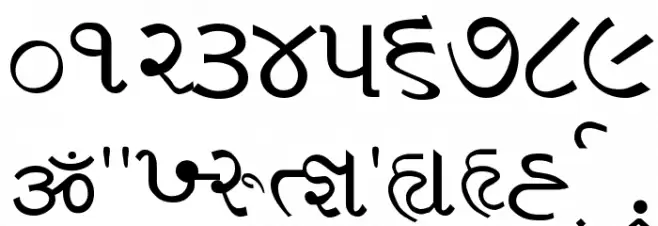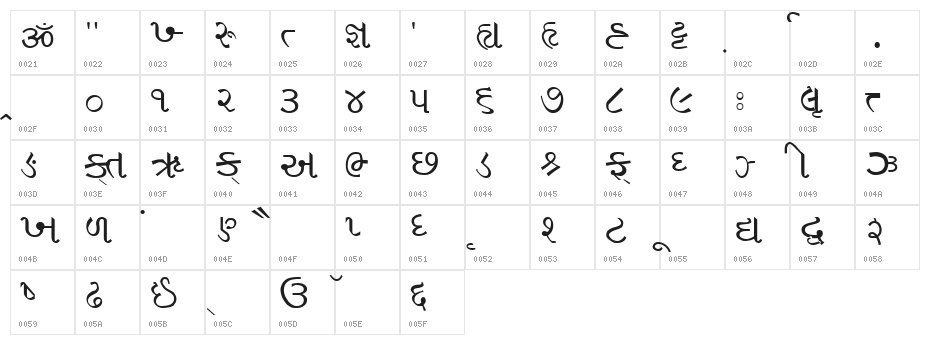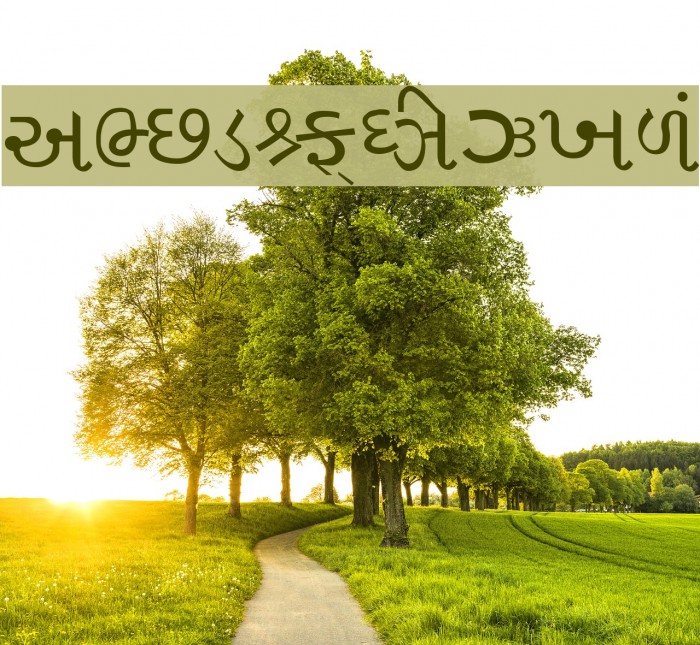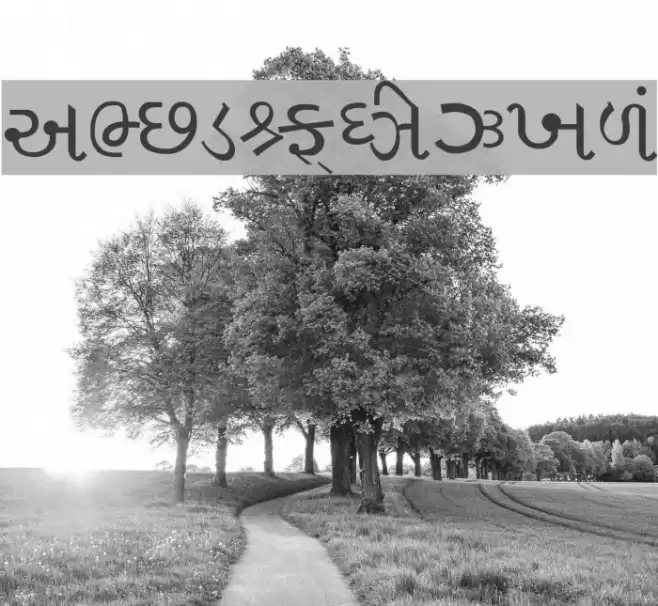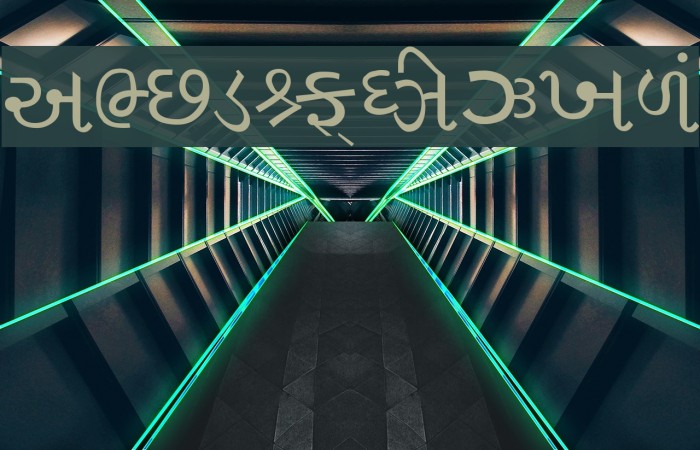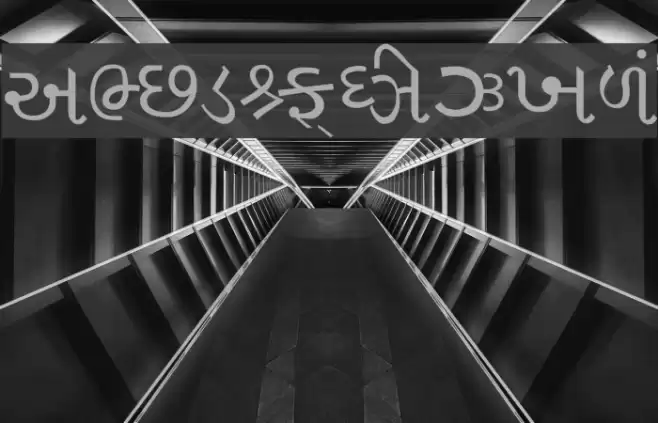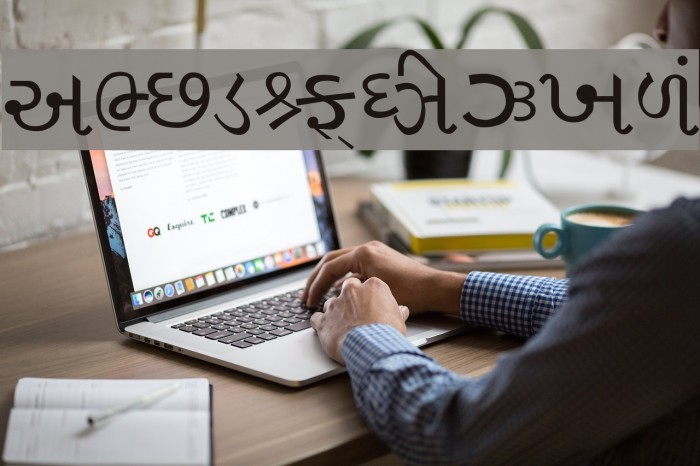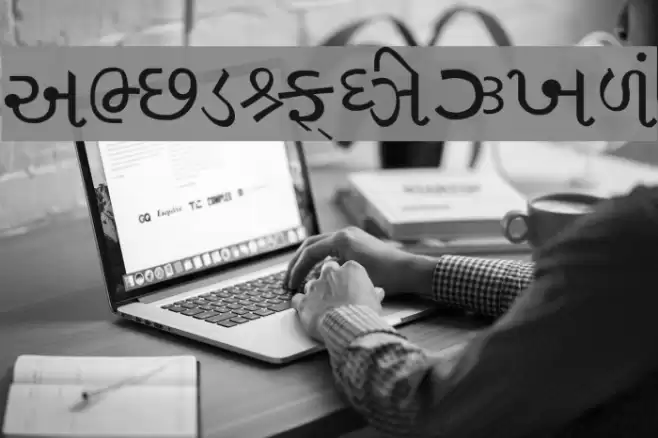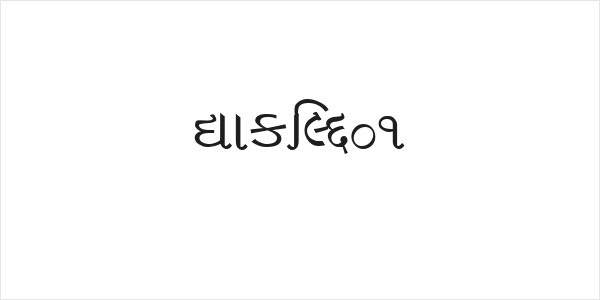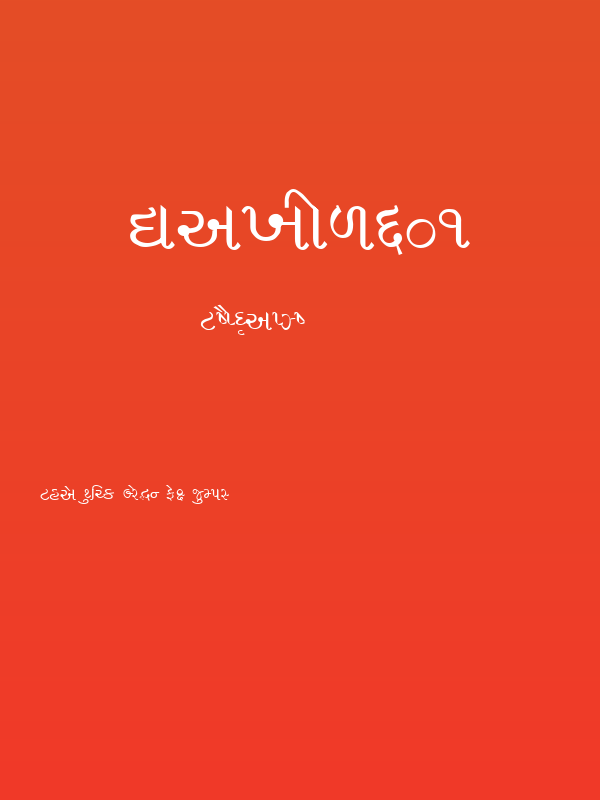
Vakil_01 Font
Vakil_01 Description
This font showcases a traditional script with a modern twist, featuring elegant curves and distinct strokes. The characters are bold and expressive, with a unique flair that combines both classic and contemporary elements. The script is fluid yet structured, maintaining readability while offering an artistic touch. The characters are well-balanced, with a consistent weight throughout, making it suitable for various design applications. The overall aesthetic is both sophisticated and approachable, ideal for projects that require a touch of cultural authenticity and elegance.
| Overall Style | Traditional, Modern |
| Use Case | Logos, Invitations, Artistic designs |
| Proposed Projects | Ideal for cultural projects, branding, invitations, and artistic designs requiring a traditional yet modern script. |